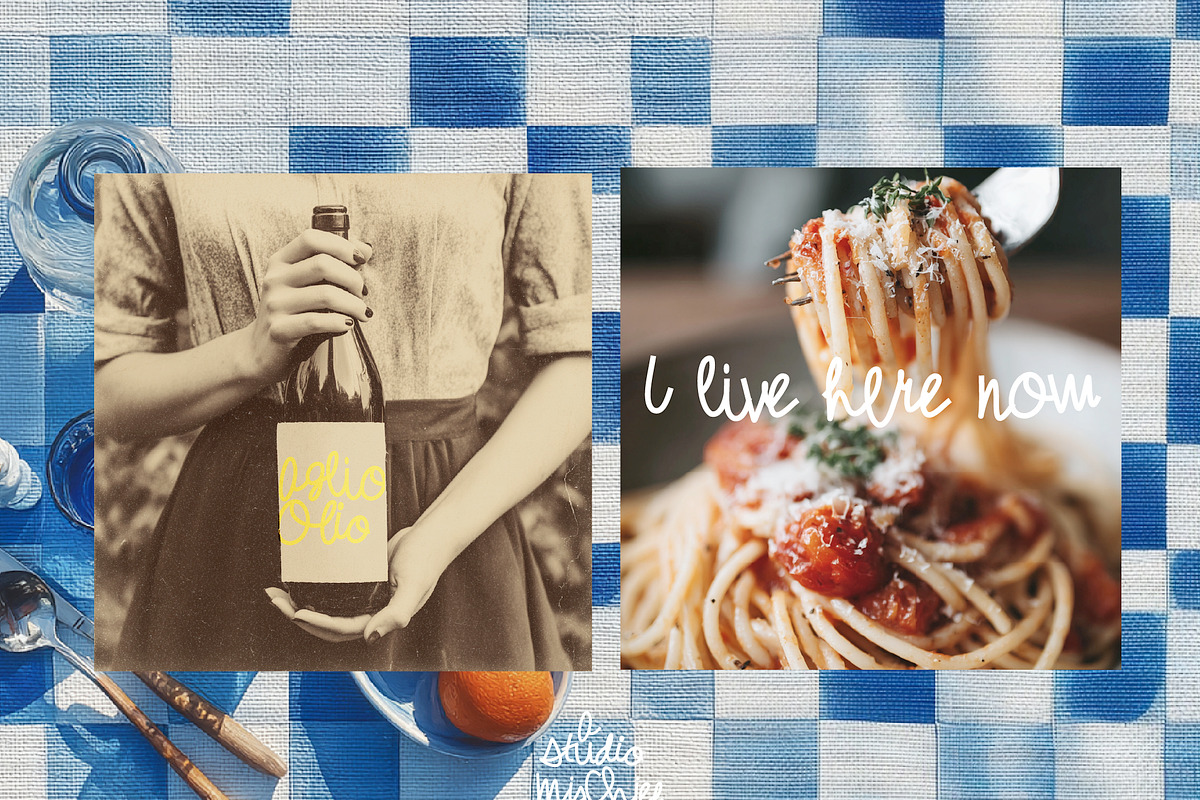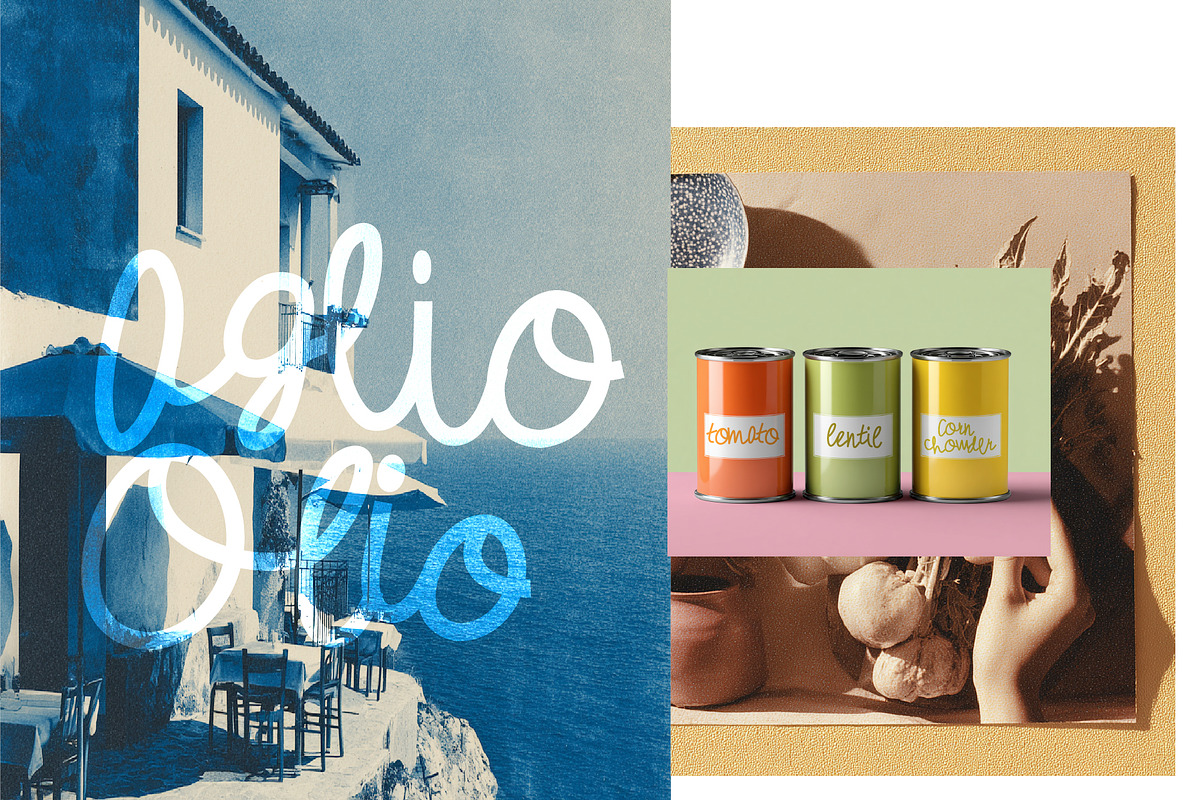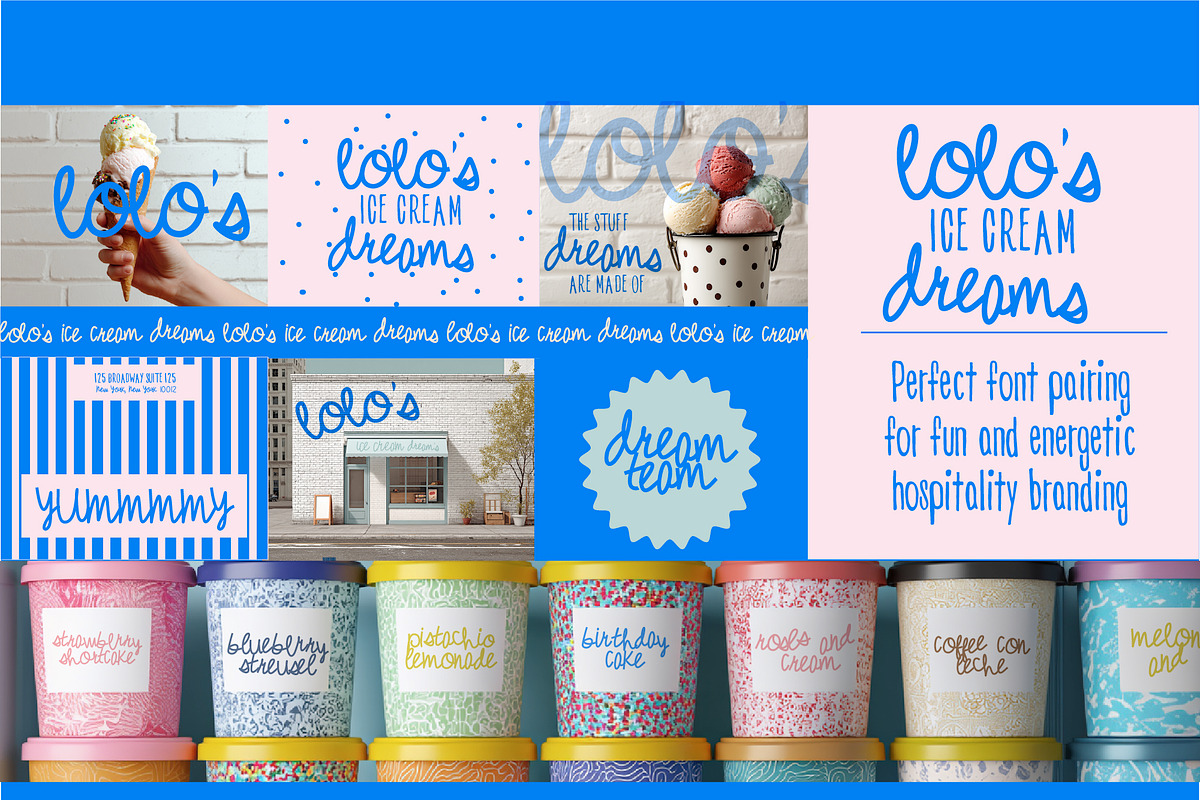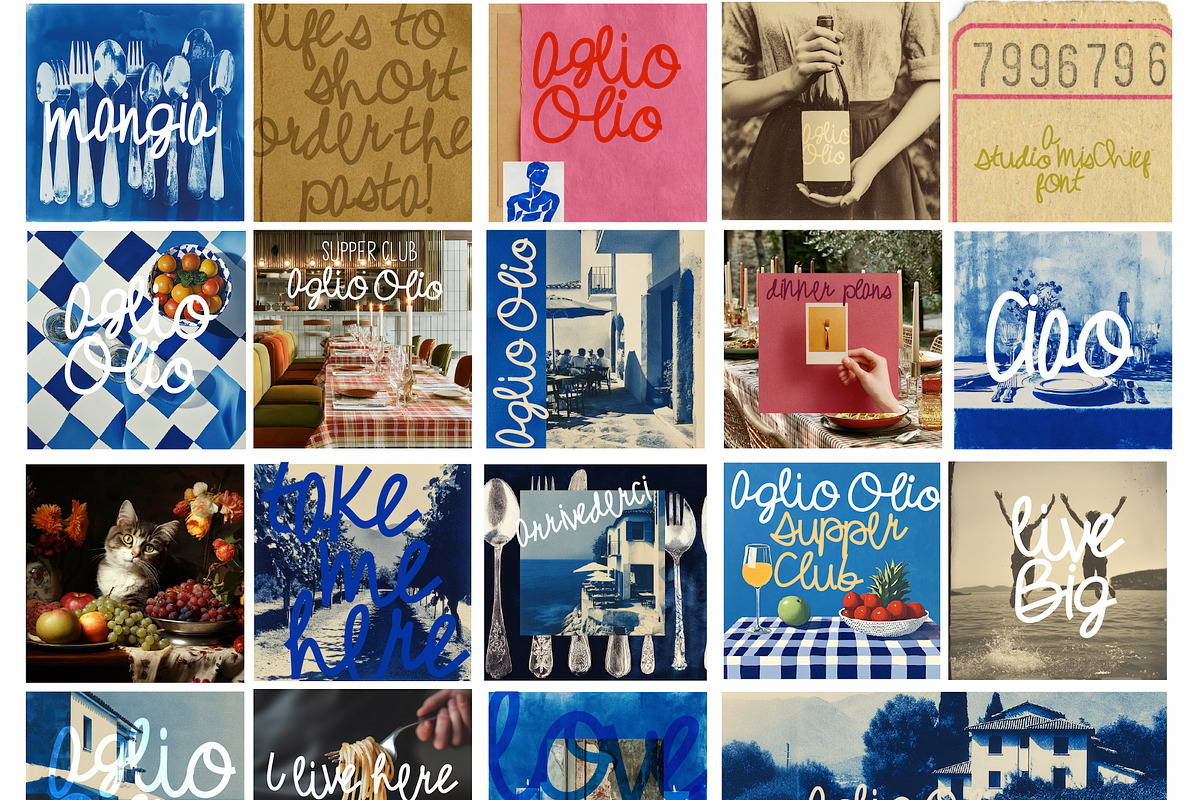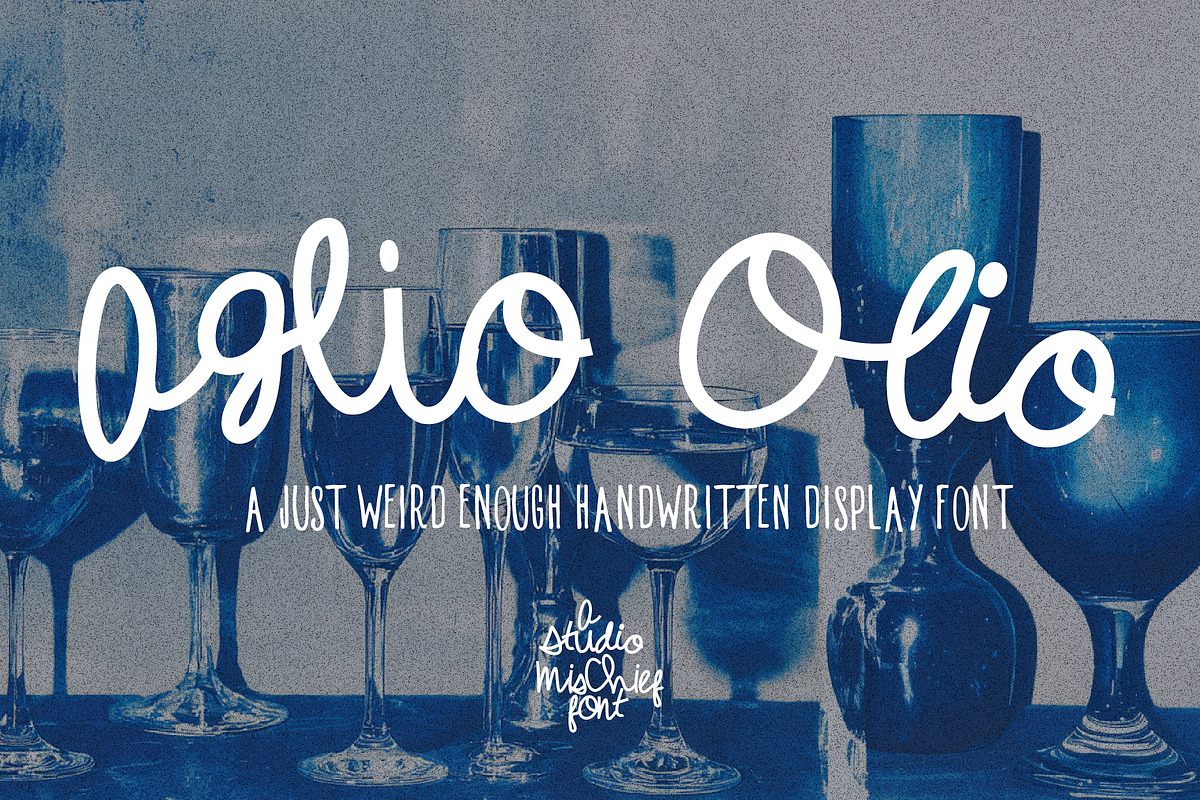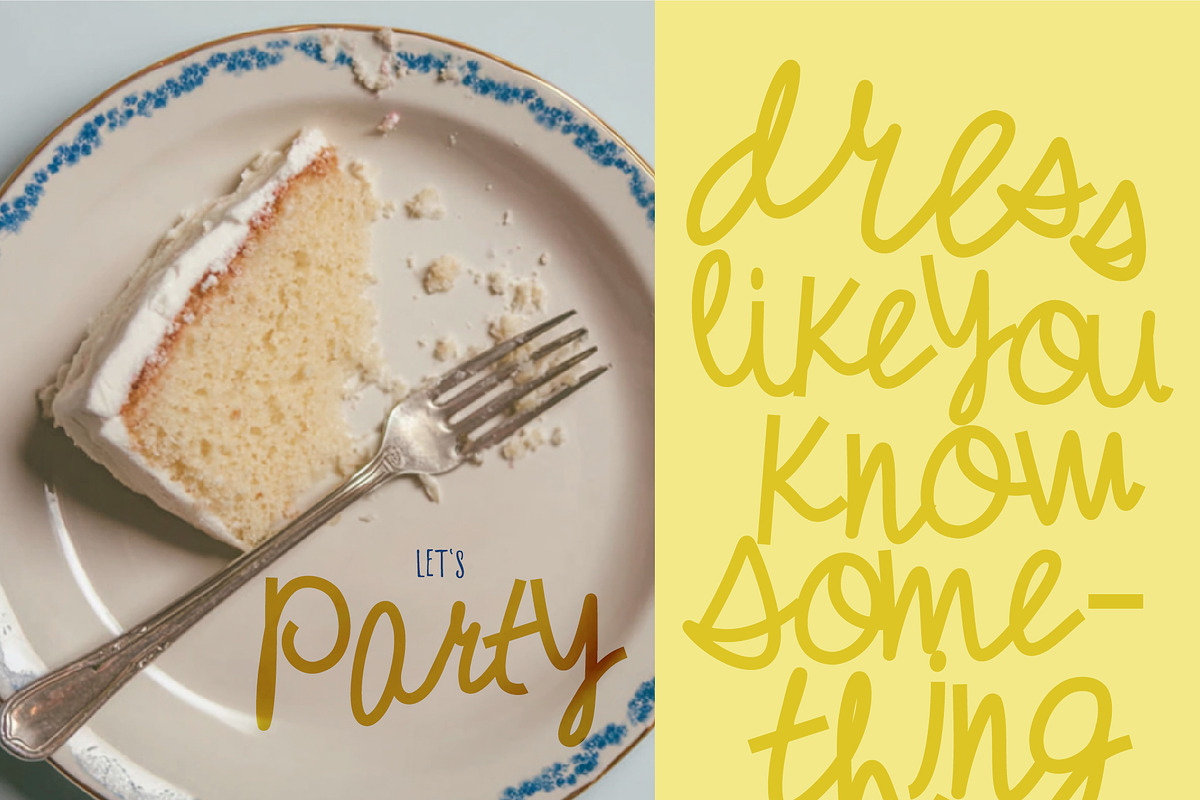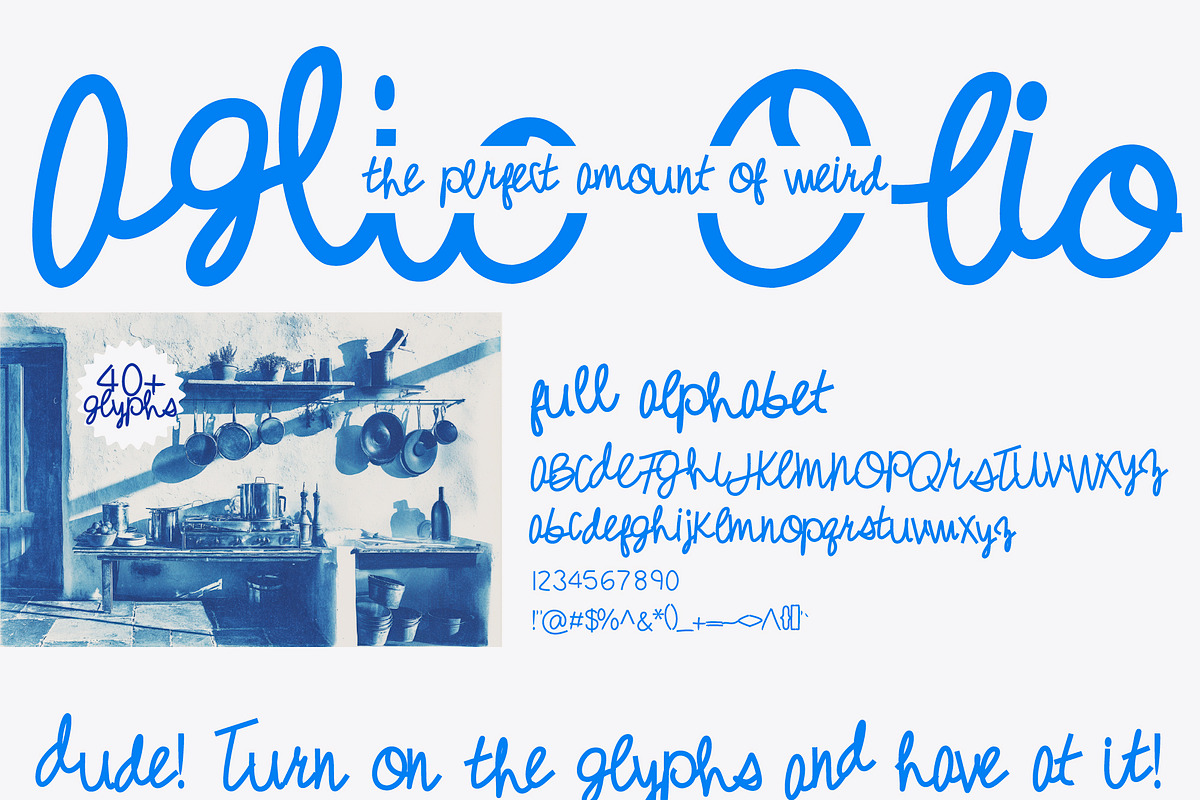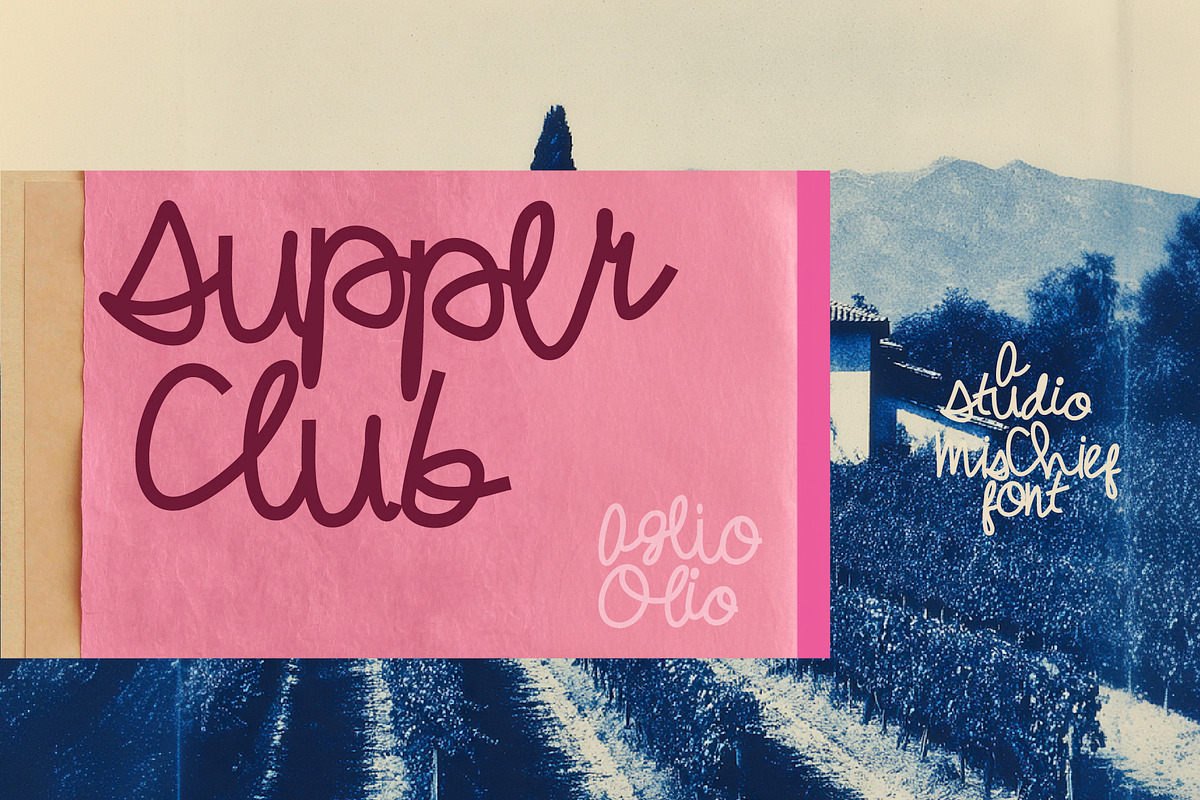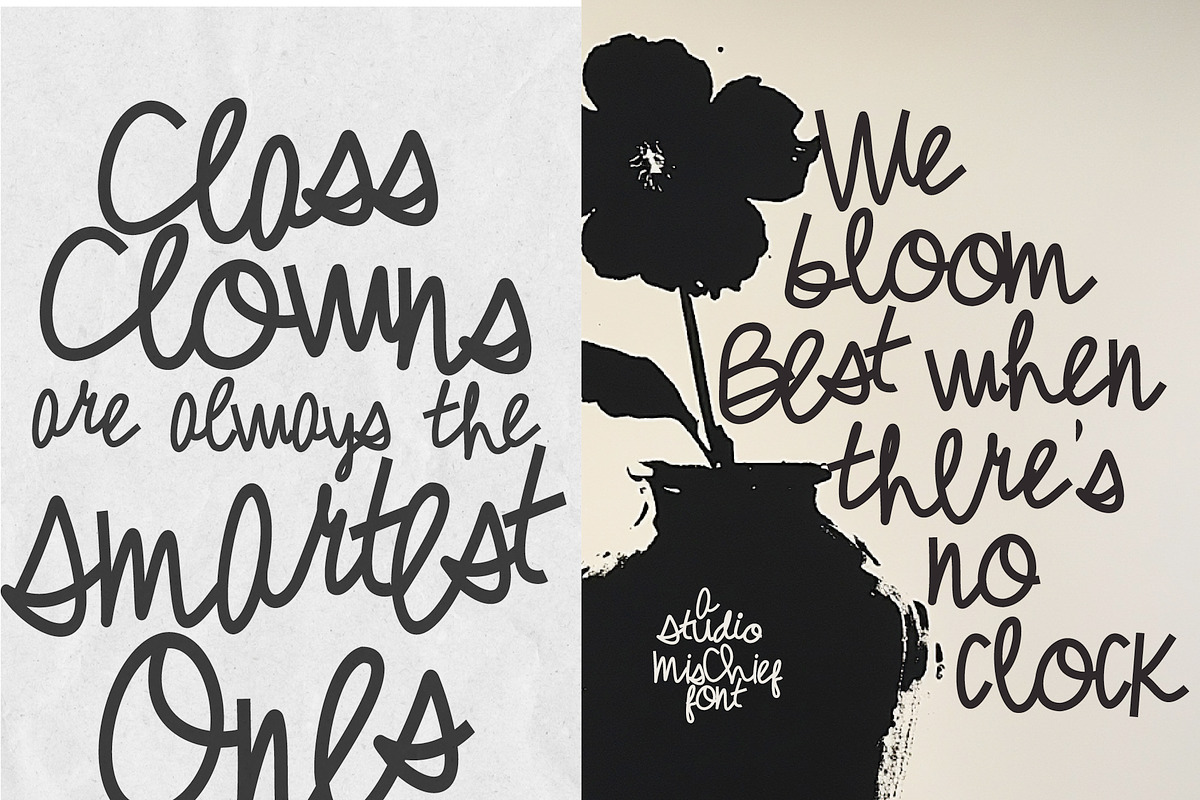
Aglio Olio Handwritten Display
Meet Aglio Olio, a handwritten display font bursting with personality, charm, and just the right dose of weird.
This isn’t your average script. Aglio Olio dances off the baseline with wonky letterforms, playful quirks, and unexpected rhythm - It's perfect for creatives who like their type a little unruly. Packed with an abundance of glyphs, alternates, ligatures, and both uppercase + lowercase characters that mix and mingle beautifully, this font makes every word feel hand-crafted and alive.
Whether you’re designing bold branding, cheeky packaging, expressive social media graphics, or just want your words to wiggle with life, [Font Name] will bring an instant shot of energy to your work. It’s made for headlines, logos, and standout statements — not for playing it safe.
- Full uppercase & lowercase alphabet
- Extensive alternates and stylistic glyphs
- Punctuation, numbers & symbols
- Five Bonus layouts!
Bring your words to life — and let them get a little weird while they’re at it.